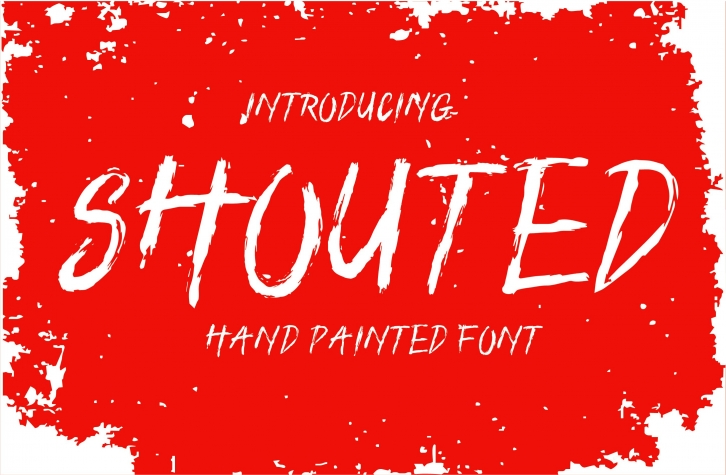
Shouted is a cool, rough textured and urban styled display font. It is suitable for designs such as t-shirts, sportswear, logos, advertisements, clothing, and more.